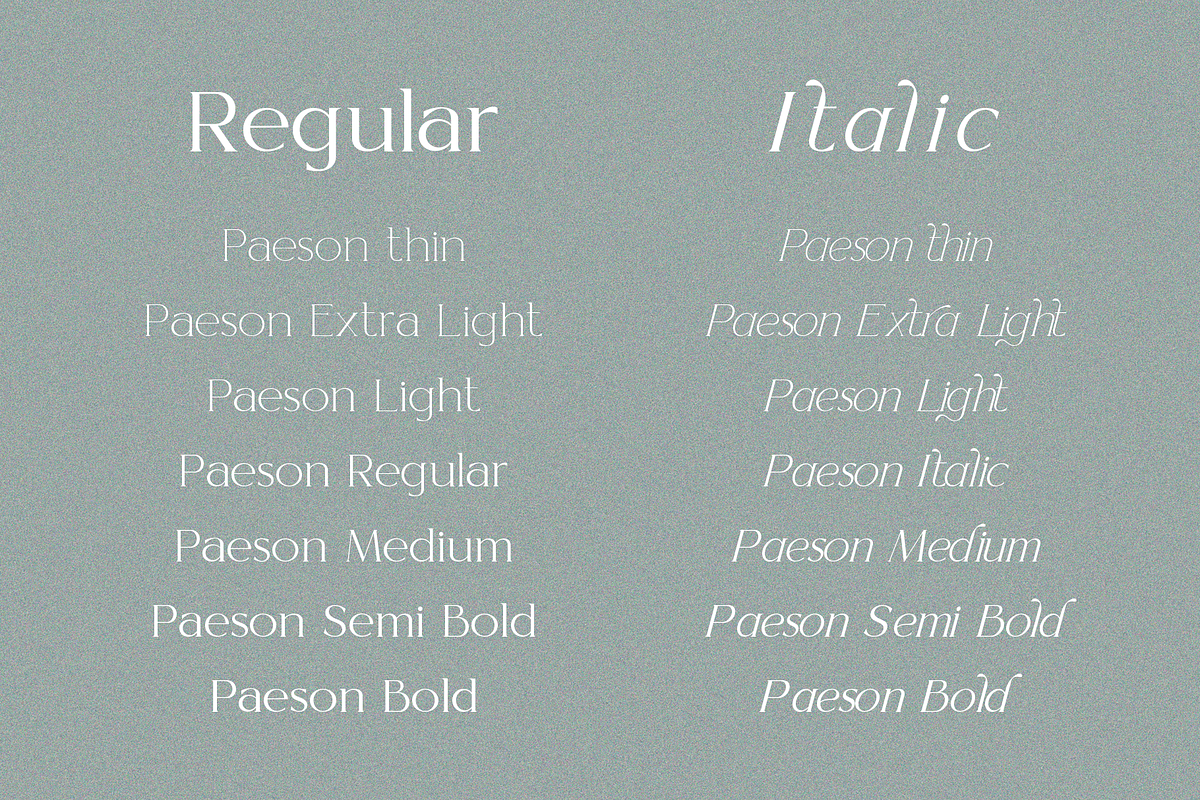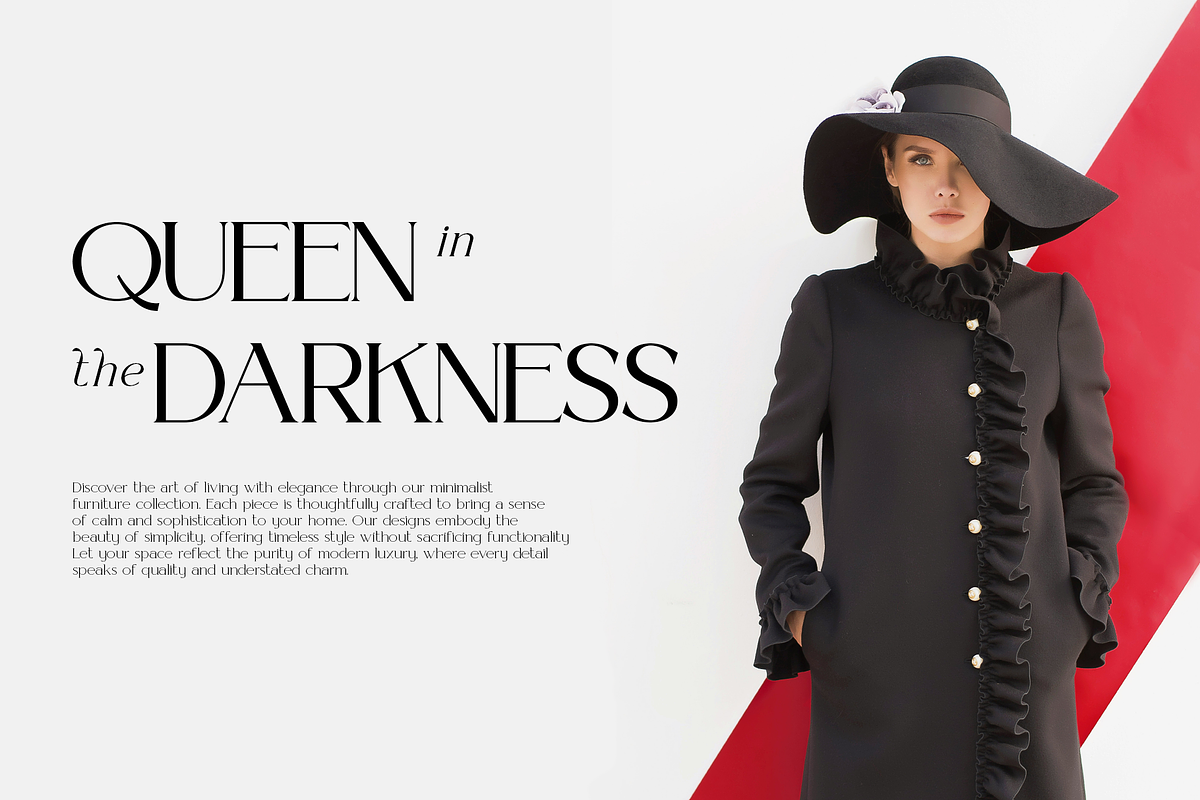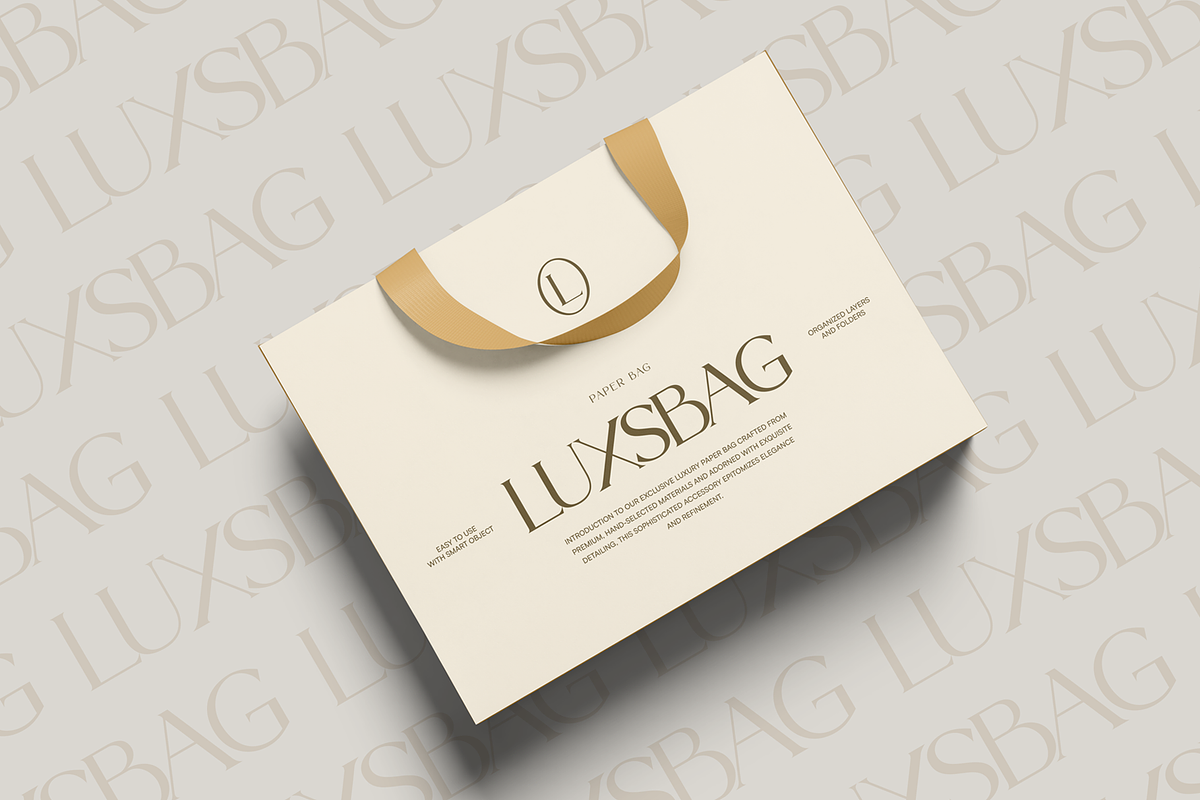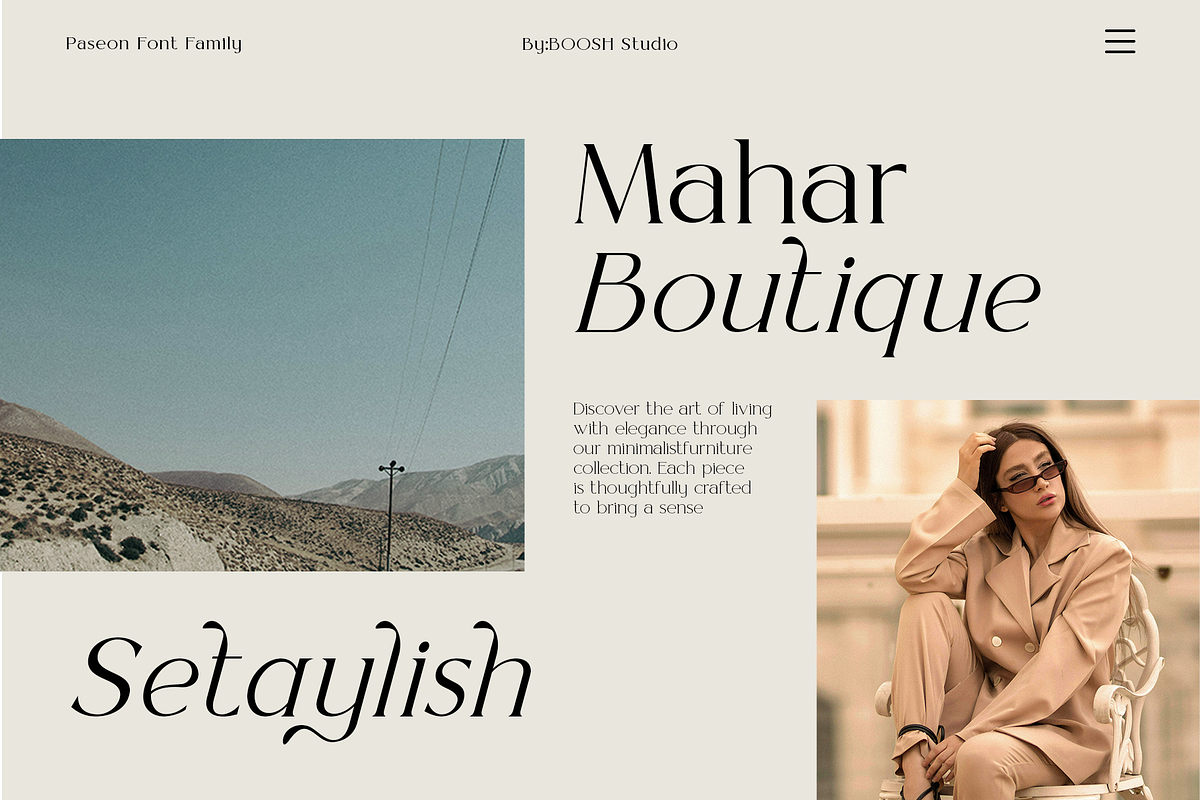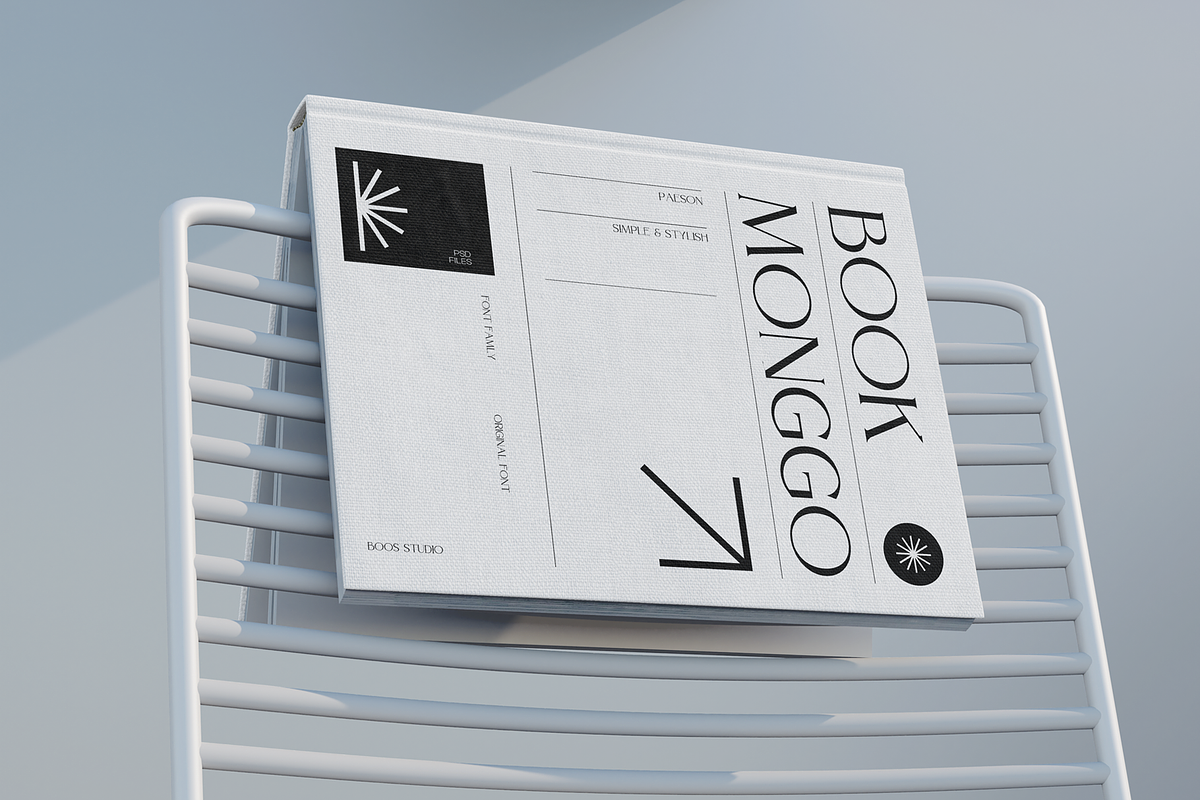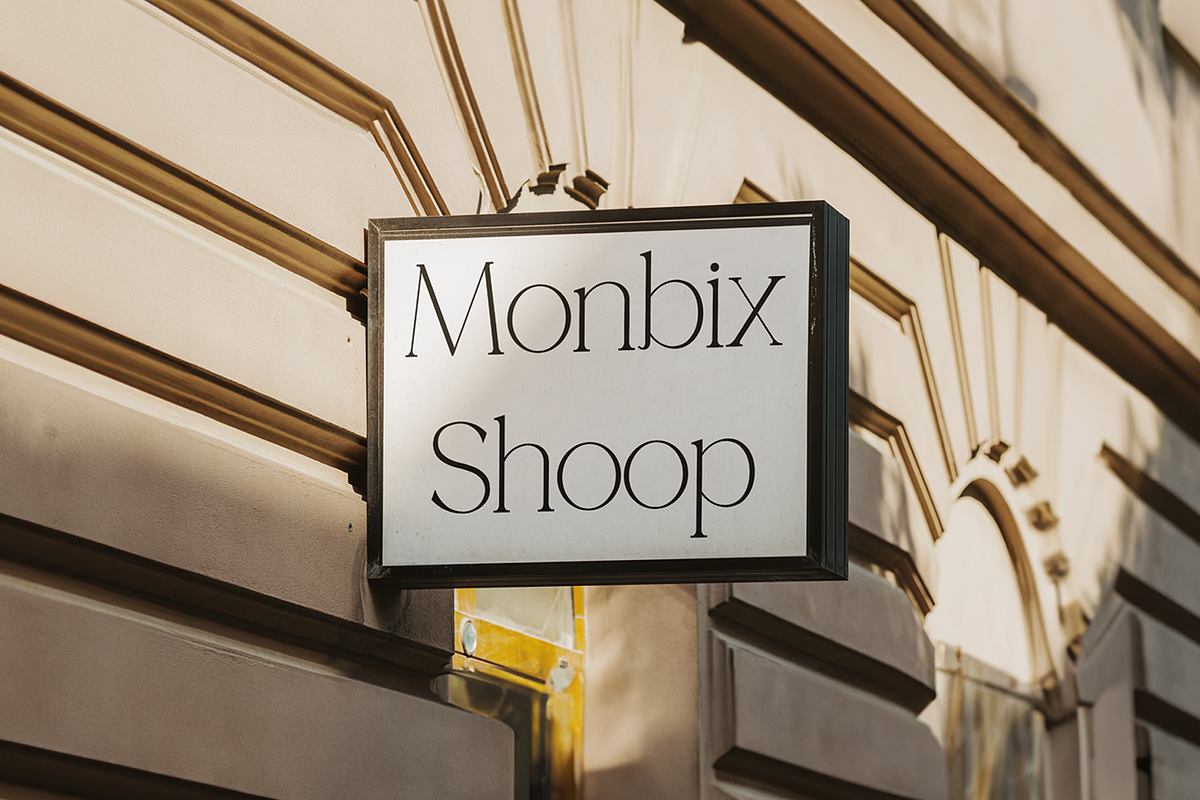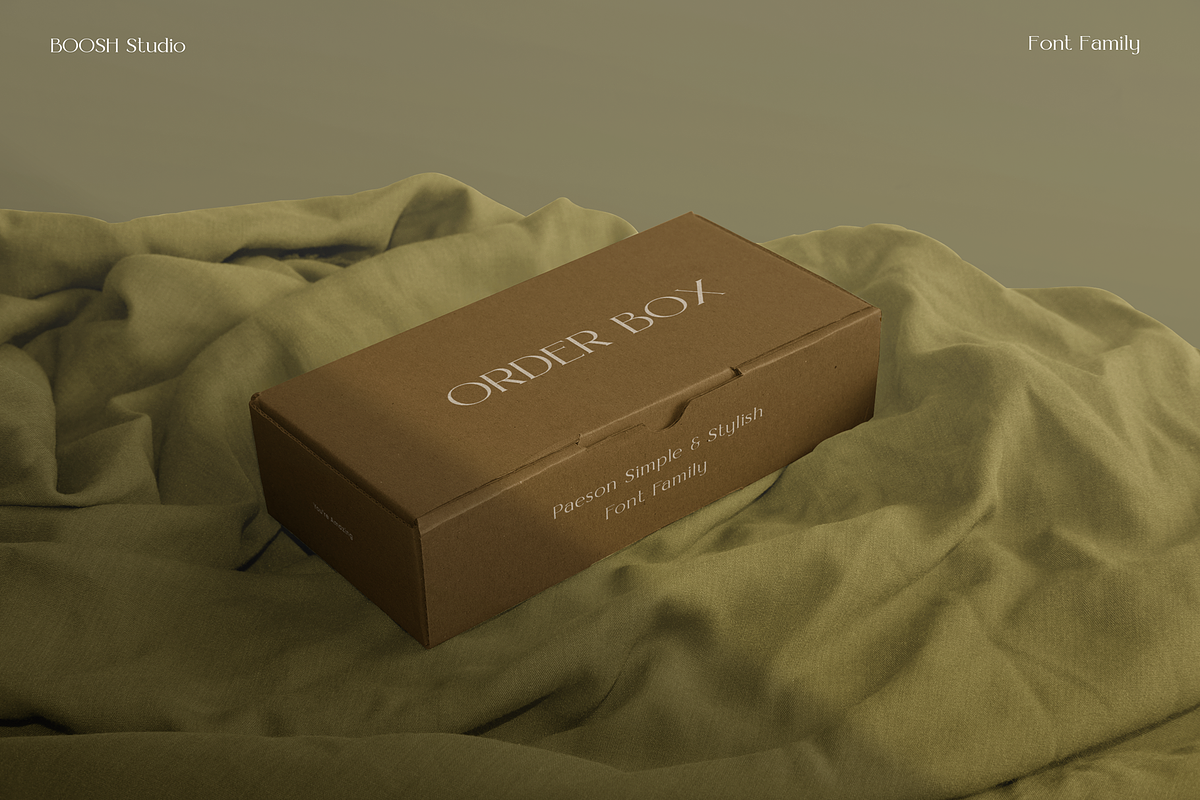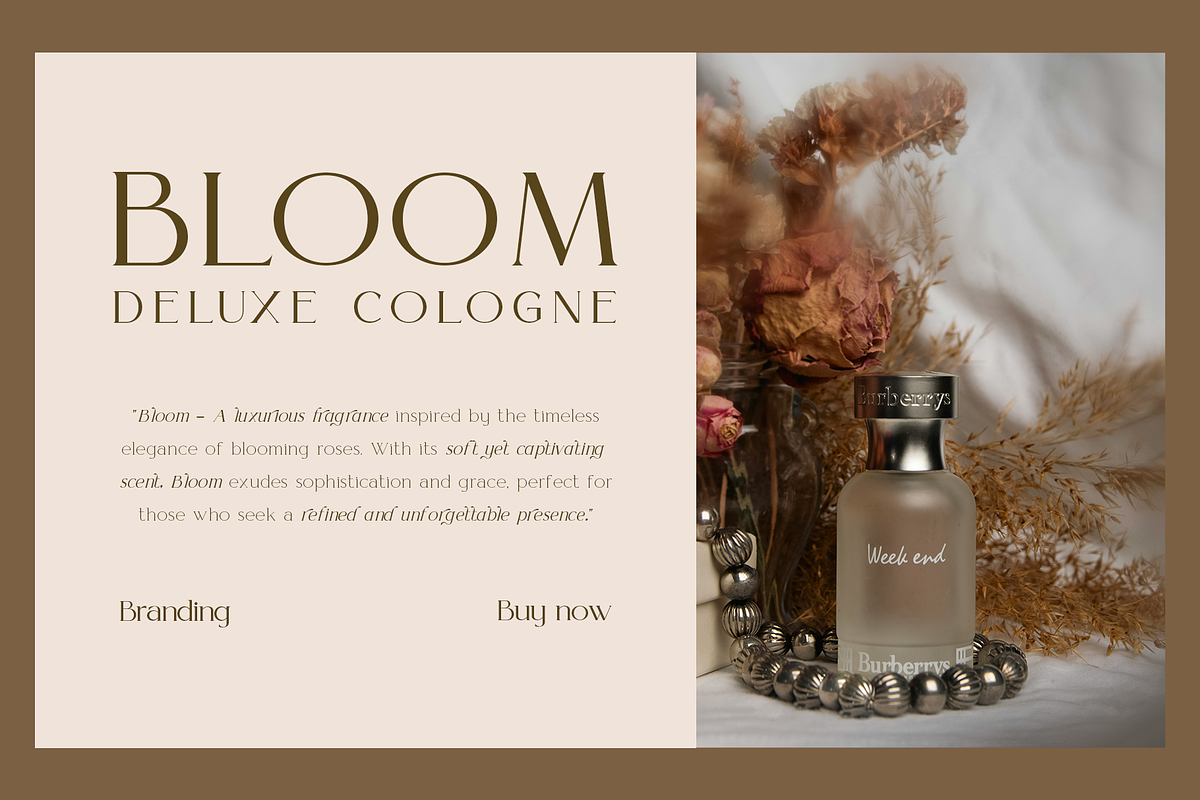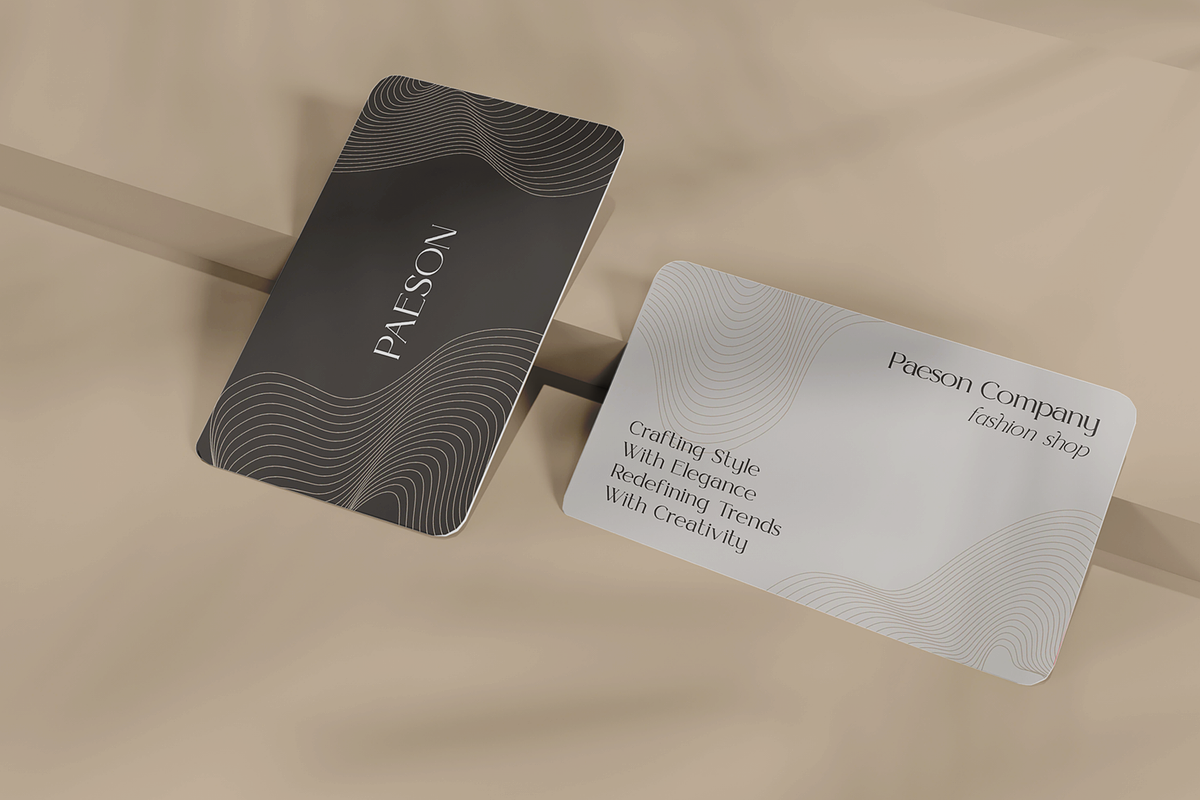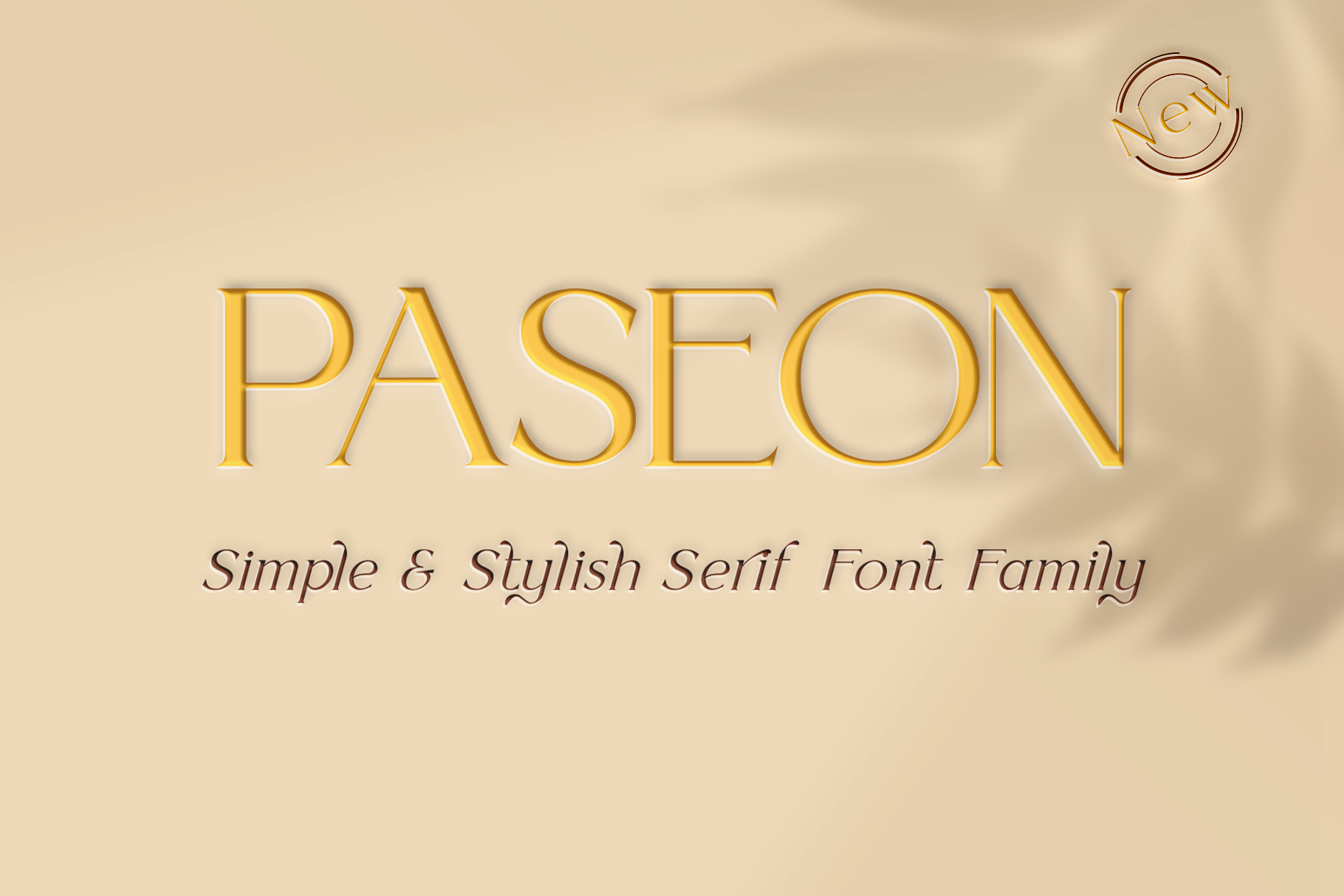
Paseon Simple & Stylish Serif Font
Paseon Simple & stylish serif font family
Discover the charm and sophistication of Paseon Simple & stylish, a serif font collection that seamlessly blends classic grace with refined style. With its elegant curves and intricate details, this font family adds a touch of distinguished luxury to any design project. Perfect for everything from chic invitations to prestigious company logos, captivating movie titles to elegant business cards, it’s designed to elevate your creative endeavors.
Featuring 14 unique and exquisitely crafted font variations, Paseon Simple & stylish Serif Family offers a diverse range of options to suit every design need.
- Elegant Ligatures for seamless text flow
- Complete Character Set: Uppercase and lowercase letters, numbers, and punctuation
- 14 Stunning Variations to provide versatility in your designs
Enhance your designs with Paseon Simple & stylish Serif Family and embrace the perfect blend of timeless elegance and sophisticated charm.